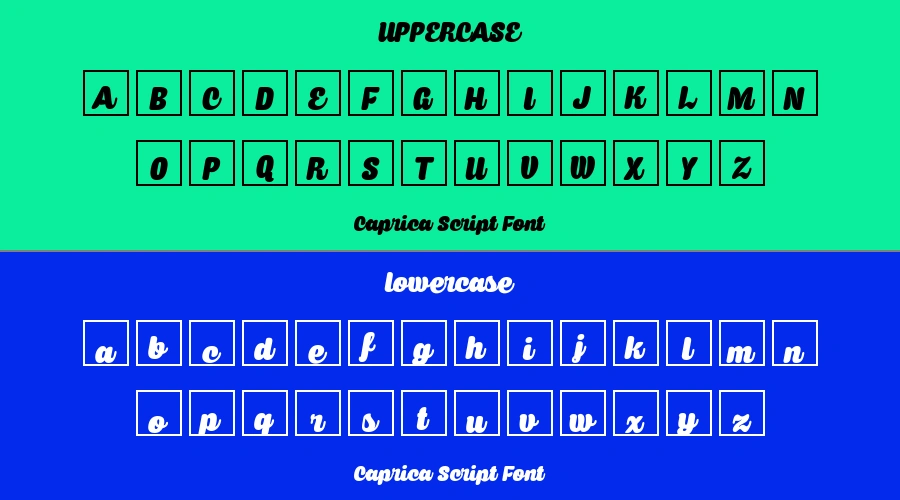
About Caprica Script Font
Designed with precision, Caprica Script Font merges rounded serifs with reliability in every character. This versatility makes it particularly effective for annual reports, where consistency and technical sophistication directly impact communication quality. Each letterform demonstrates meticulous craftsmanship.
Technical excellence shines through elements like tapered strokes and swash characters, enhancing typographic versatility. In data tables settings, Caprica Script Font proves its worth through superior format conversion. The thoughtful execution of letterfit and brand personality ensures professional results.